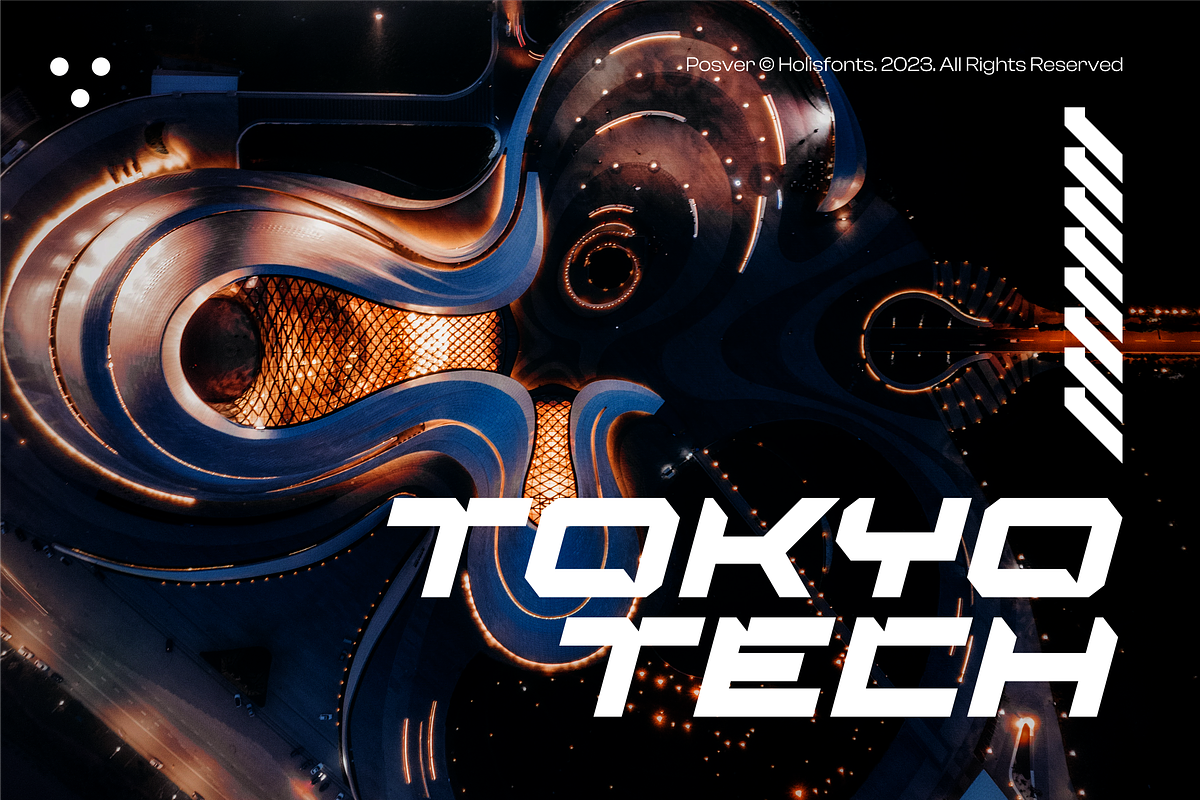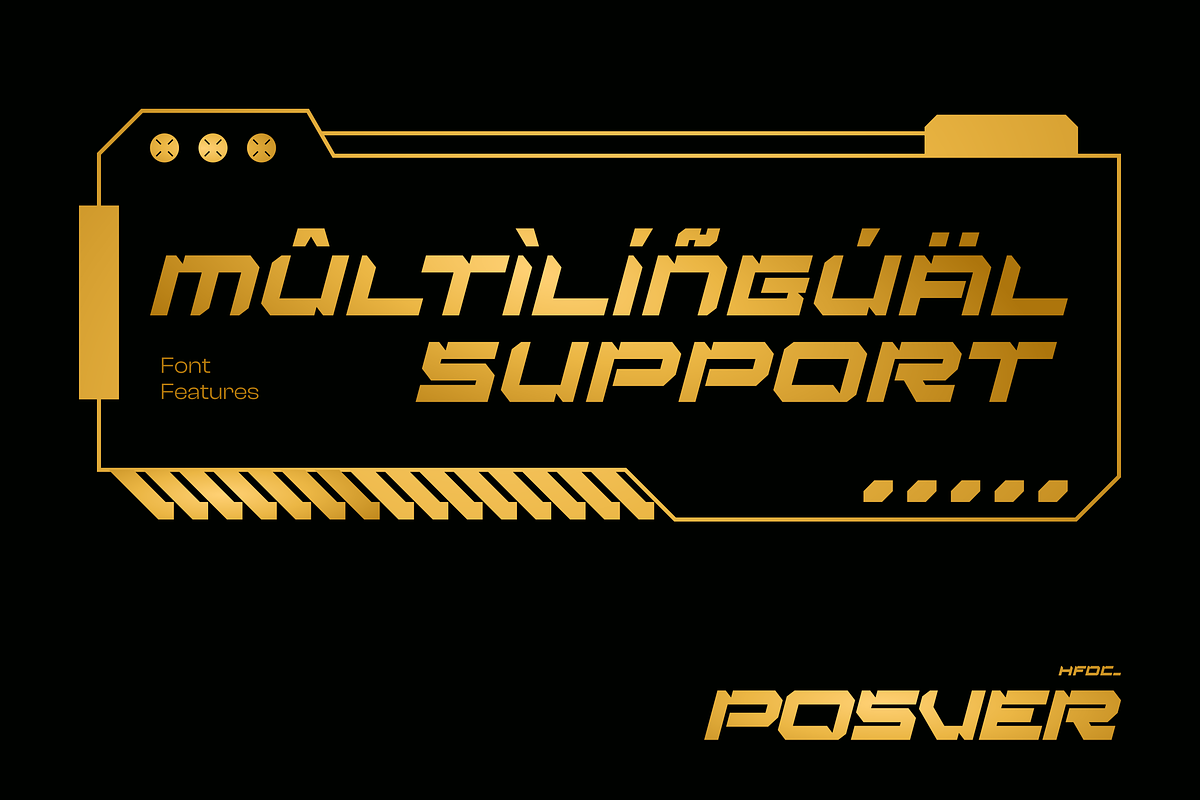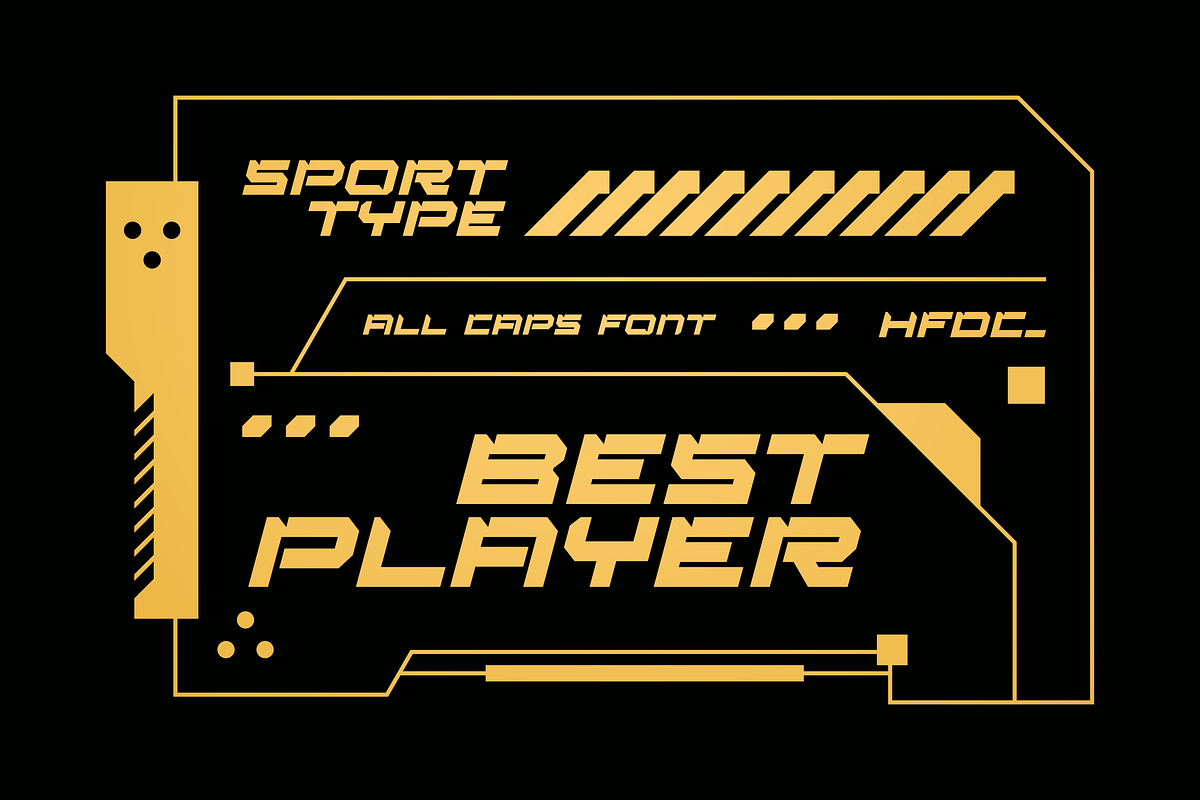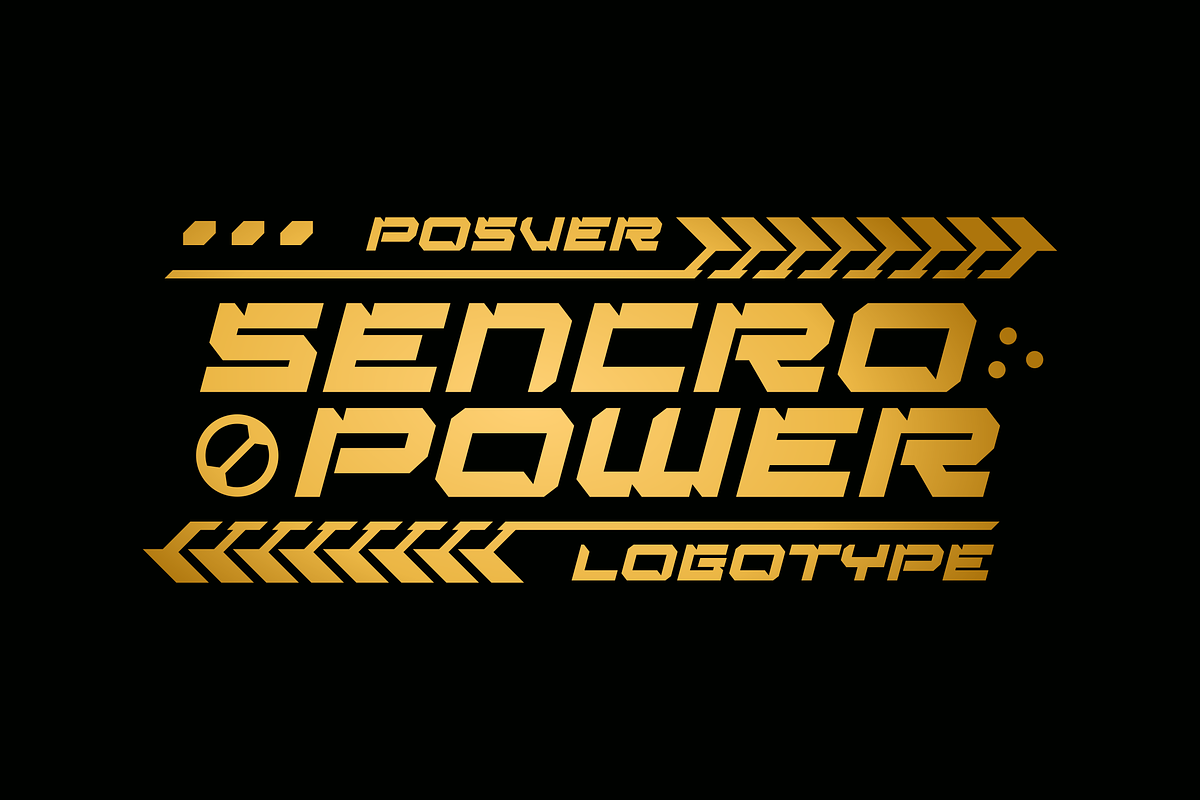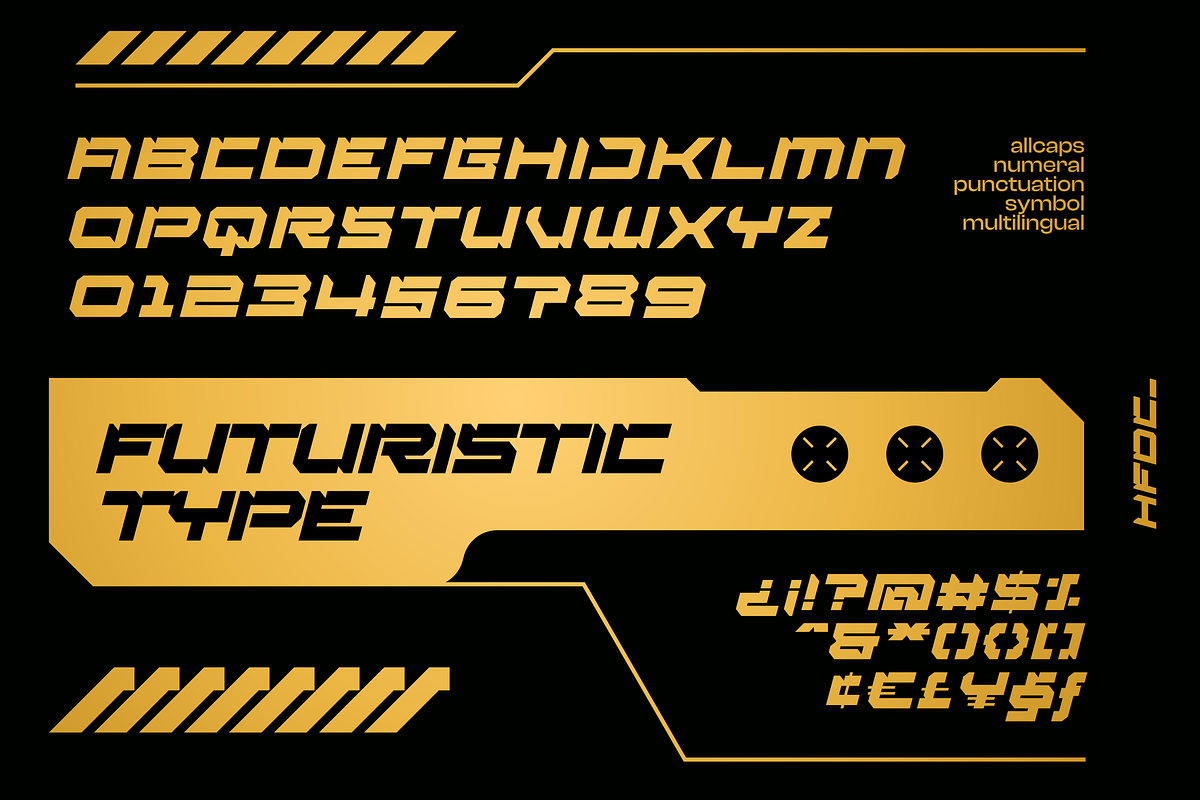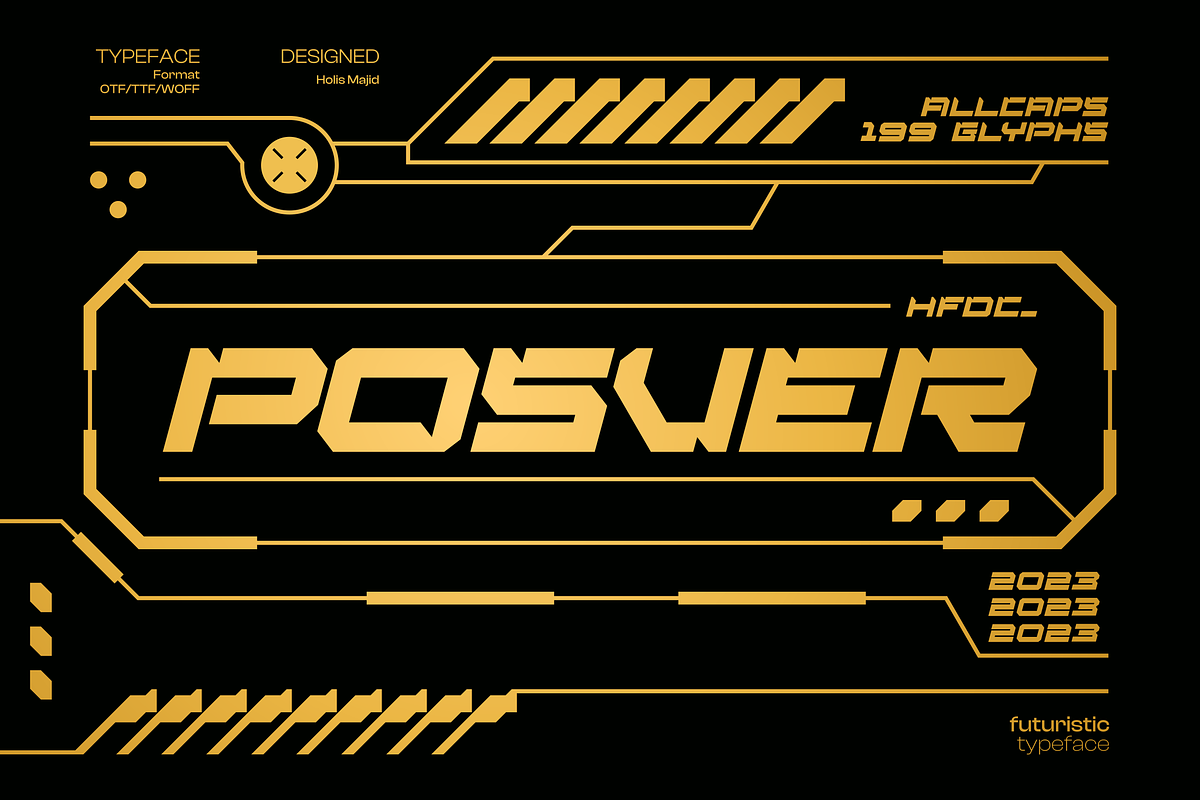
Posver Futuristic
The futuristic font is called Posver with a bold geometric style, and has the All Caps set character, with supported features, multi-language support, numerals, punctuation and several symbols.
- All caps